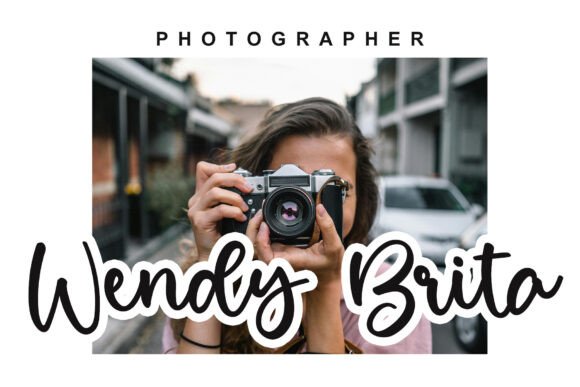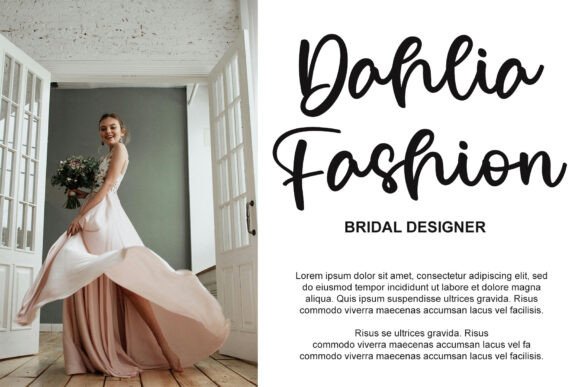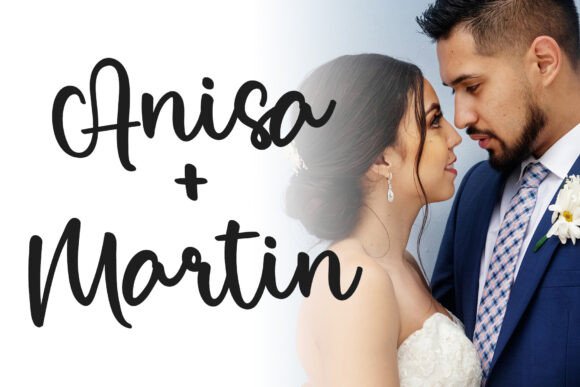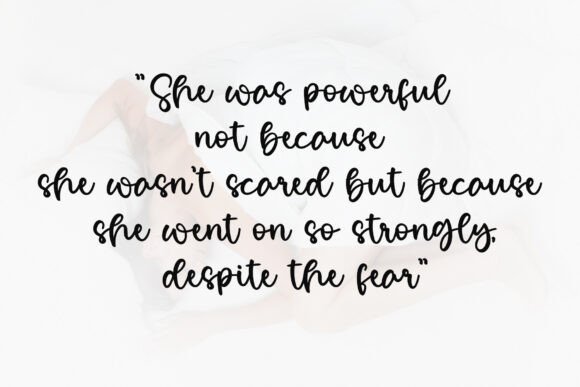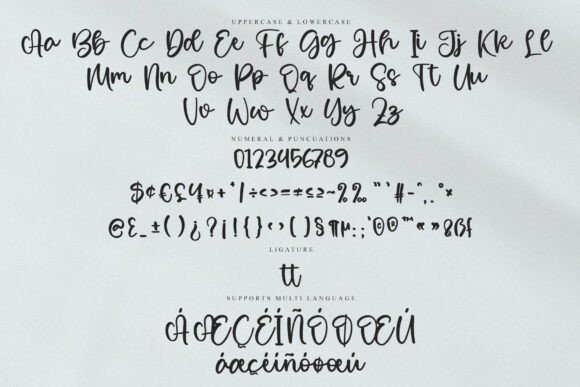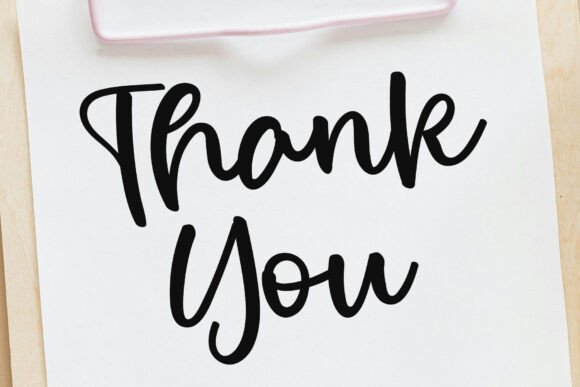
Introducing Bestie Signature Font: Elevate Your Designs with Elegance
Are you on the hunt for a font that adds a touch of sophistication and charm to your projects? Look no further than the Bestie Signature Font. This delicate, elegant, and flowing handwritten font is perfect for designers and crafters seeking to infuse their work with a timeless style. In this article, we’ll dive into the world of Bestie Signature Font, exploring its unique features, uses, and benefits.
The Distinctive Charm of Bestie Signature Font
Bestie Signature Font boasts an incredibly distinct style that sets it apart from other fonts. Its flowing, handwritten curves and delicate lines evoke a sense of elegance and refinement, making it ideal for a wide range of projects. Whether you’re designing wedding invitations, branding materials, or social media graphics, Bestie Signature Font is sure to impress.
Key Features of Bestie Signature Font
- Delicate and Elegant: Bestie Signature Font features a slender, refined design that exudes sophistication and poise.
- Flowing Handwritten Style: The font’s flowing curves and lines create a sense of movement and fluidity, adding a touch of whimsy to your designs.
- Timeless Appeal: Bestie Signature Font’s classic design ensures it remains relevant and stylish for years to come.
- Versatile: Use Bestie Signature Font for a variety of projects, from digital designs to print materials.
Bestie Signature Font is a versatile font that caters to the needs of both designers and crafters. Whether you’re creating:
- Wedding Invitations: Add a touch of romance and elegance to your wedding stationery with Bestie Signature Font.
- Branding Materials: Use Bestie Signature Font to create sophisticated logos, business cards, and letterheads.
- Social Media Graphics: Elevate your social media presence with eye-catching graphics featuring Bestie Signature Font.
- Crafting Projects: Incorporate Bestie Signature Font into your crafting projects, such as scrapbooking, card-making, and journaling.
Tips for Using Bestie Signature Font
To get the most out of Bestie Signature Font, consider the following tips:
- Pair with Complementary Fonts: Combine Bestie Signature Font with clean, modern fonts to create visual interest and contrast.
- Experiment with Colors: Bestie Signature Font looks stunning in a range of colors, from soft pastels to rich jewel tones.
- Play with Size and Style: Use Bestie Signature Font in various sizes and styles to add emphasis and create visual hierarchy.
In conclusion, Bestie Signature Font is a beautiful, elegant, and versatile font that’s perfect for designers and crafters seeking to add a touch of sophistication to their projects. With its distinctive style, timeless appeal, and versatility, Bestie Signature Font is sure to become a favorite in your font collection. So why wait? Fall in love with Bestie Signature Font and start creating spectacular designs today!